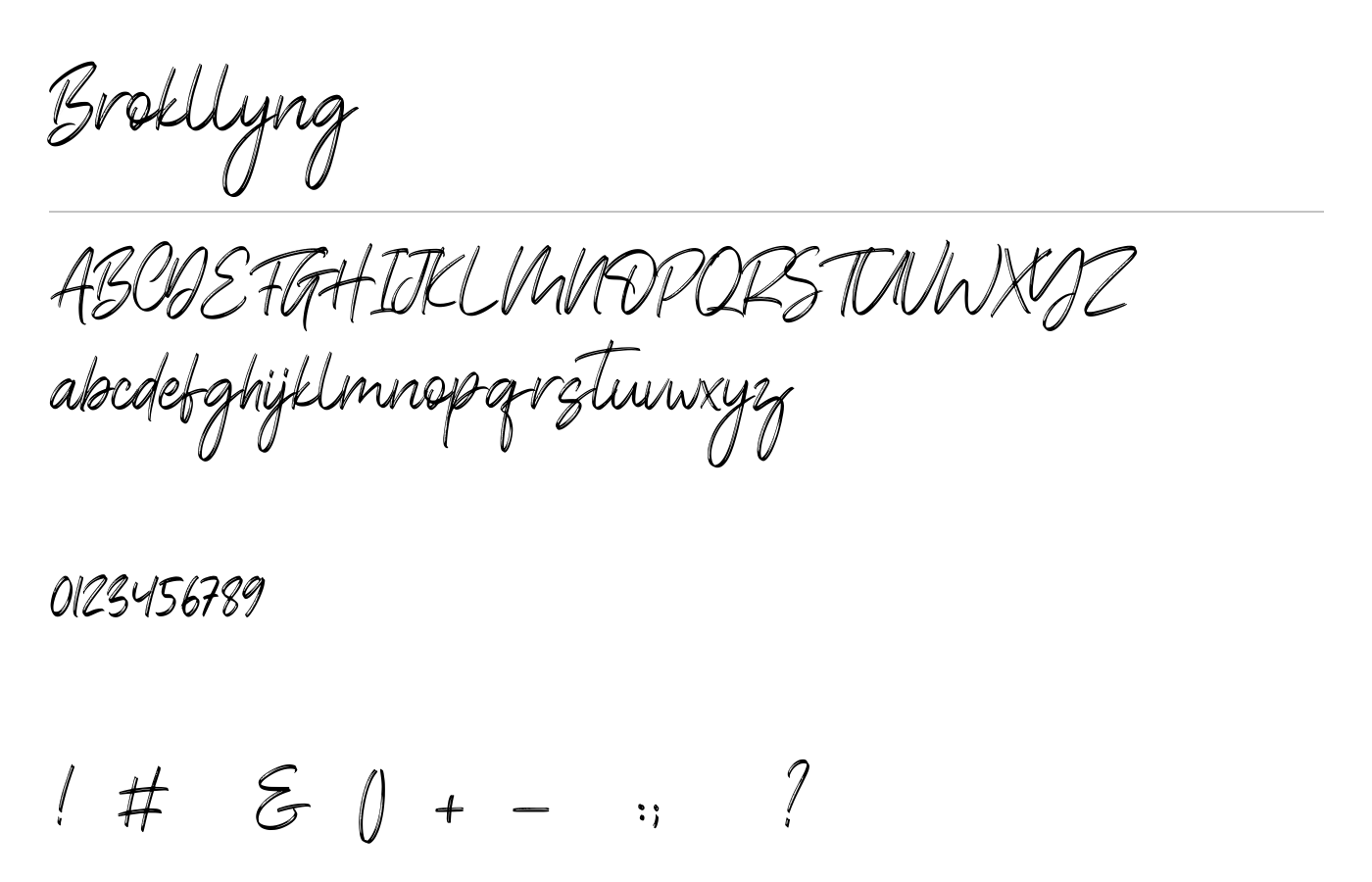
Brokllyng is a casual, handwritten script font with a light, airy feel and flowing, slightly slanted strokes that give it a natural, personal touch. Its thin lines and elegant yet playful character make it perfect for inviting, creative projects like branding, invitations, and social media graphics that want to convey warmth and authenticity. This font works well in headlines and decorative text where a stylish, handwritten look is desired.
Brokllyng Font
About Brokllyng Font